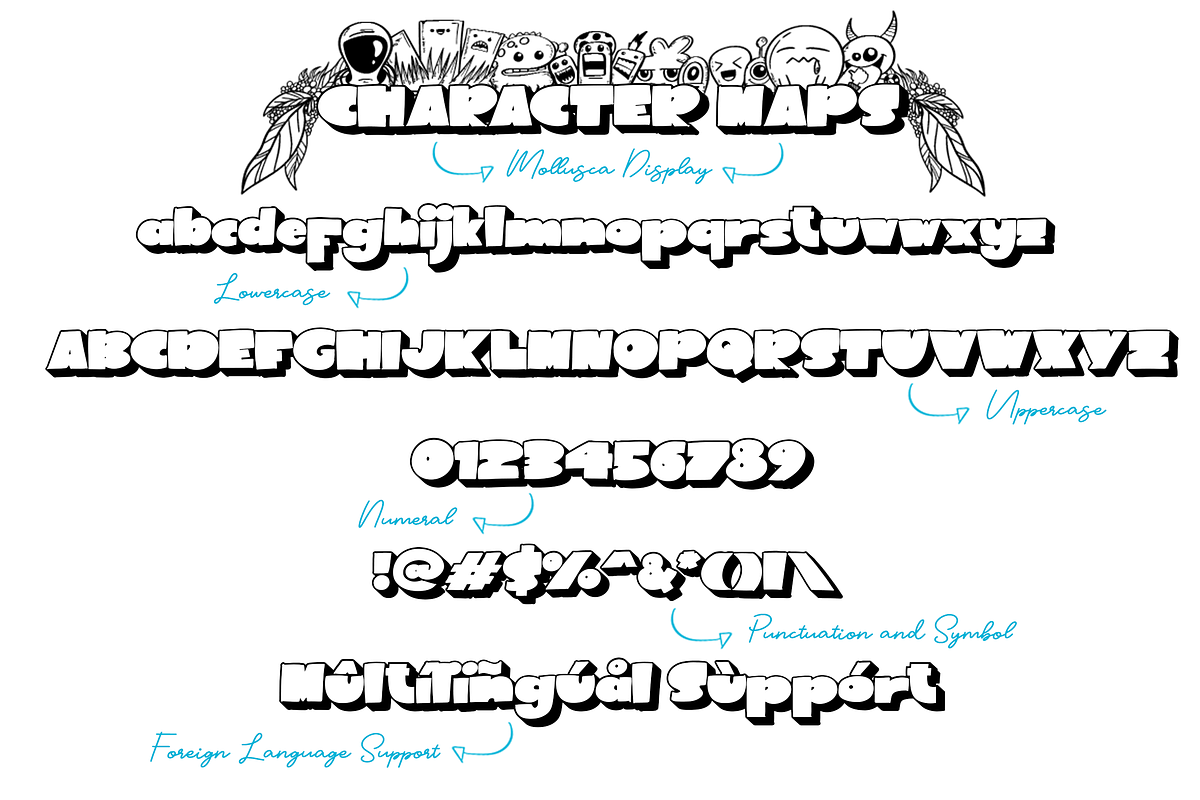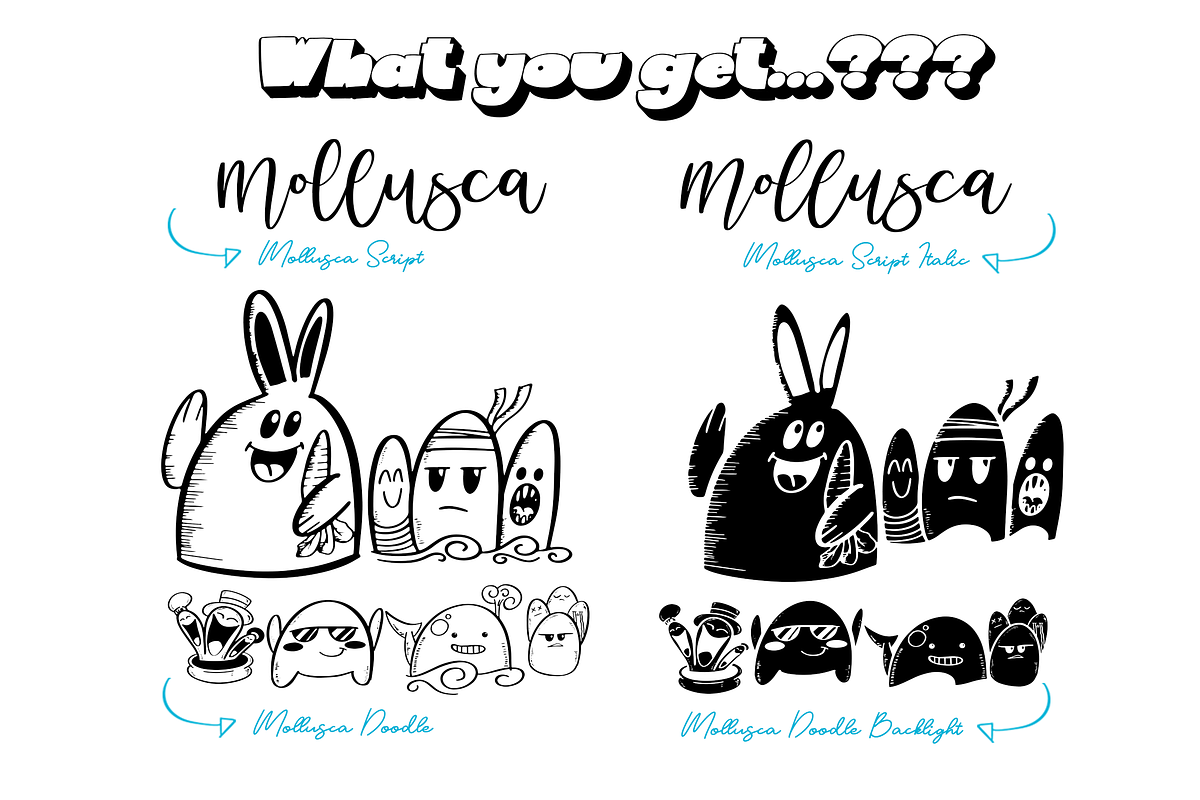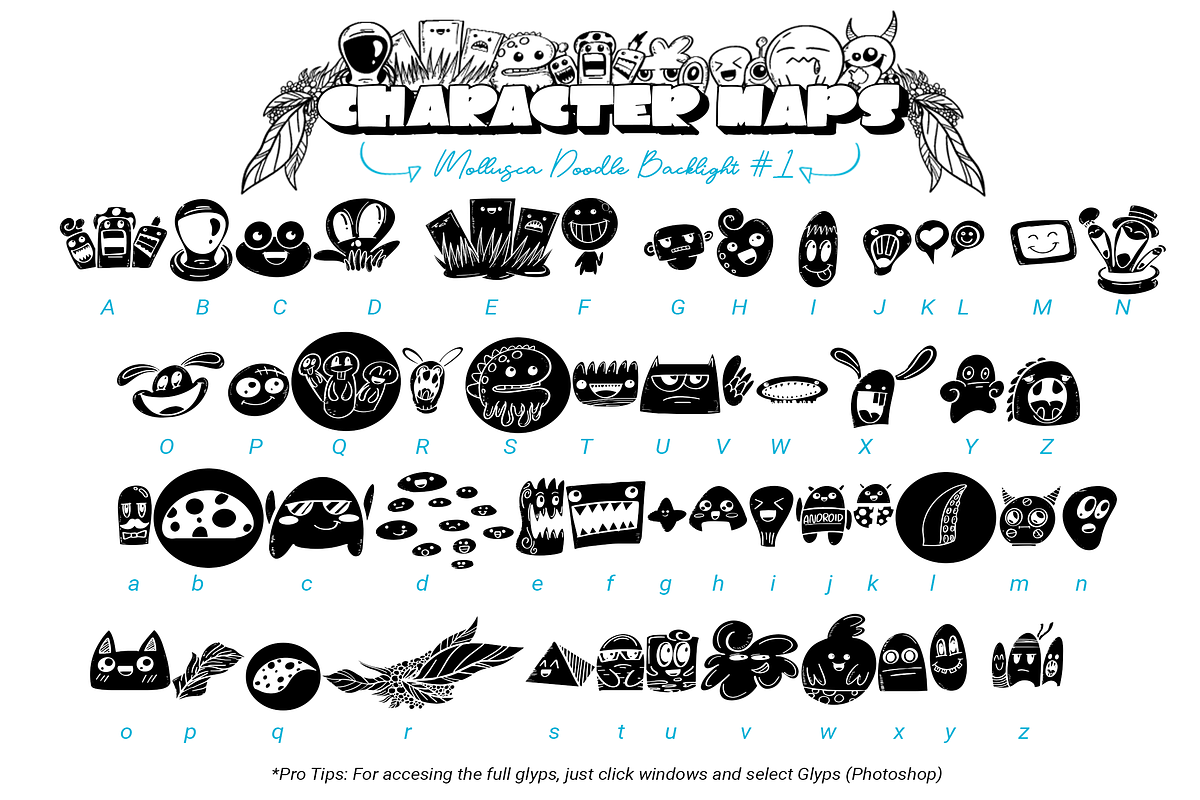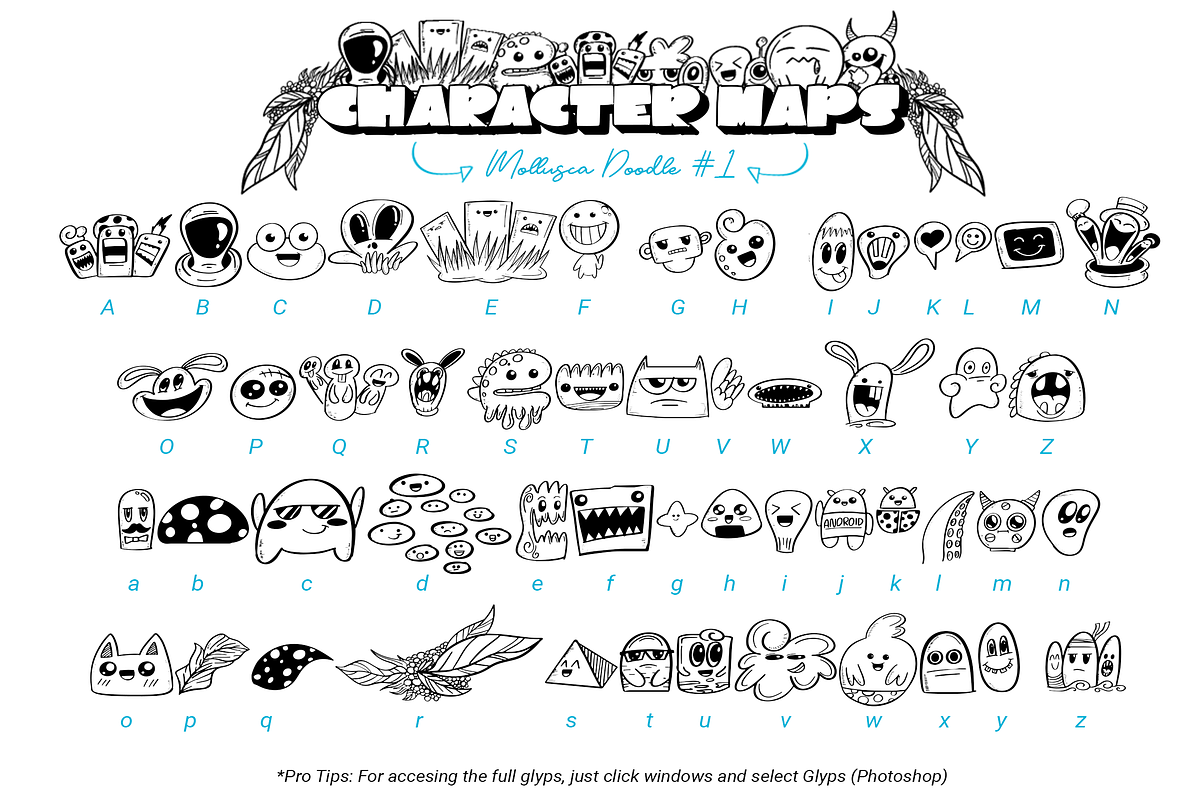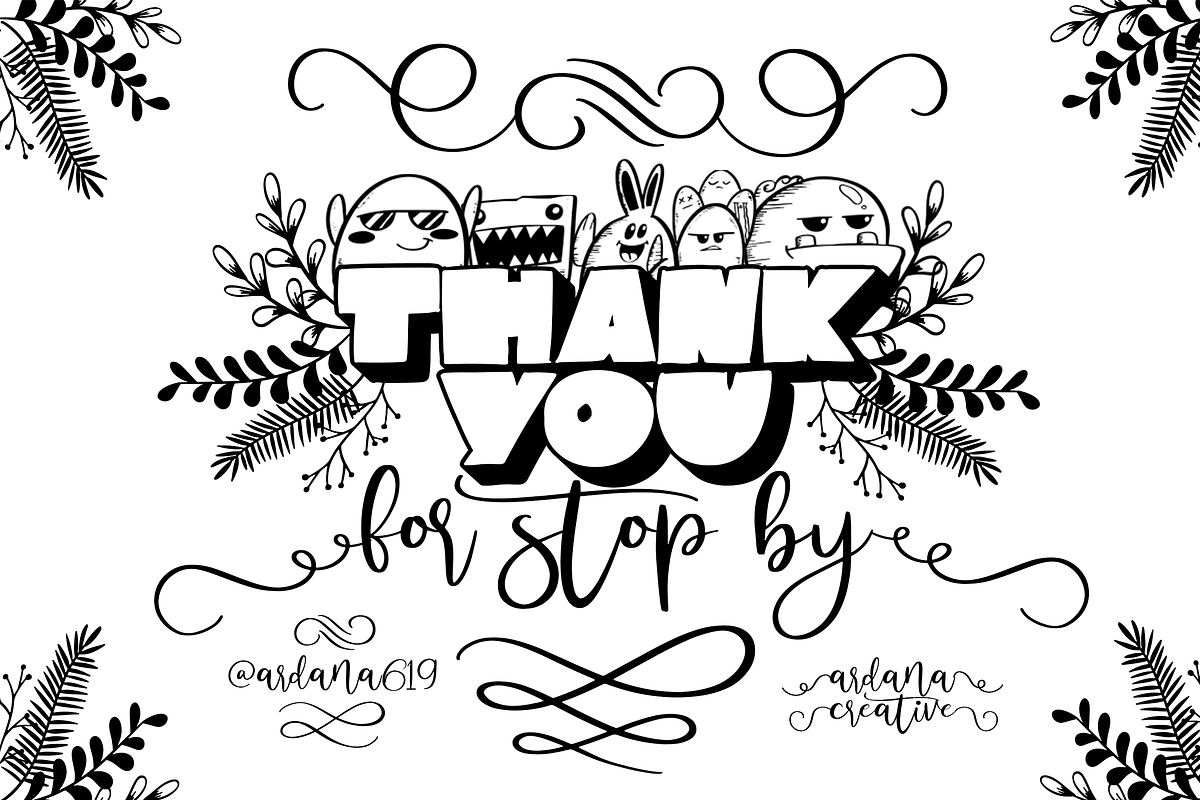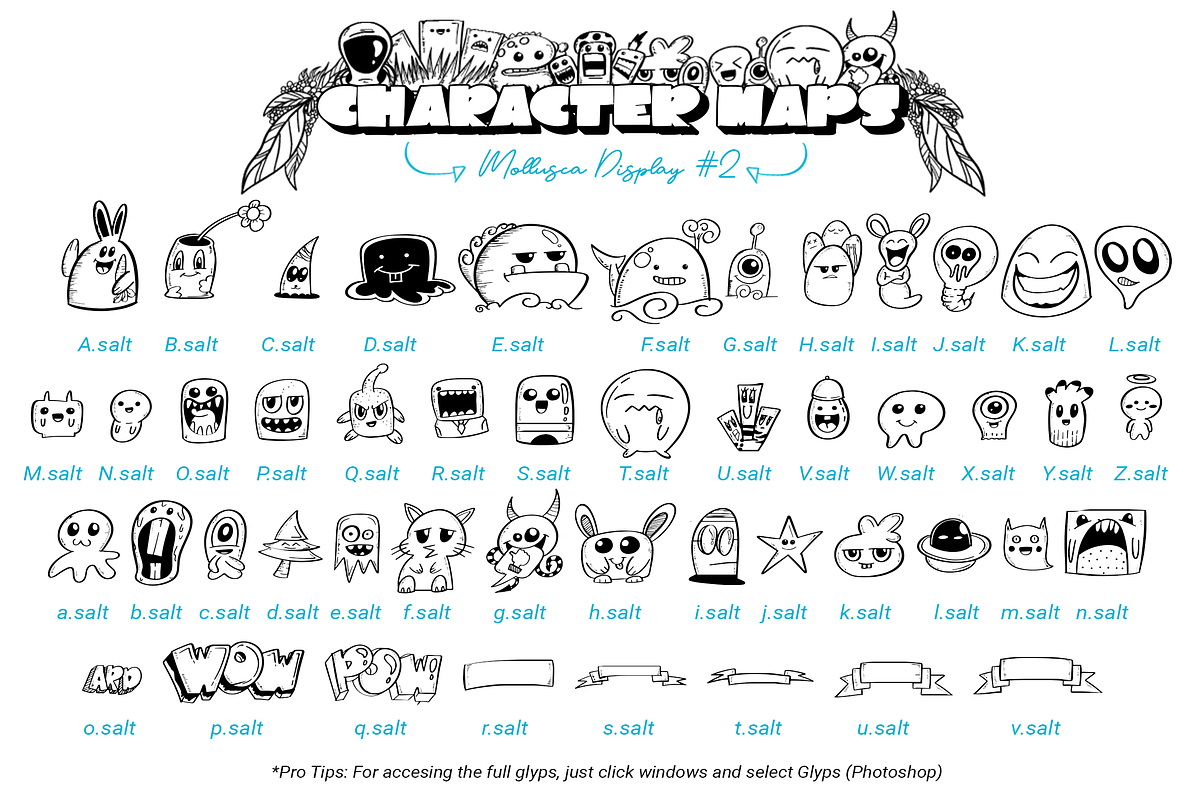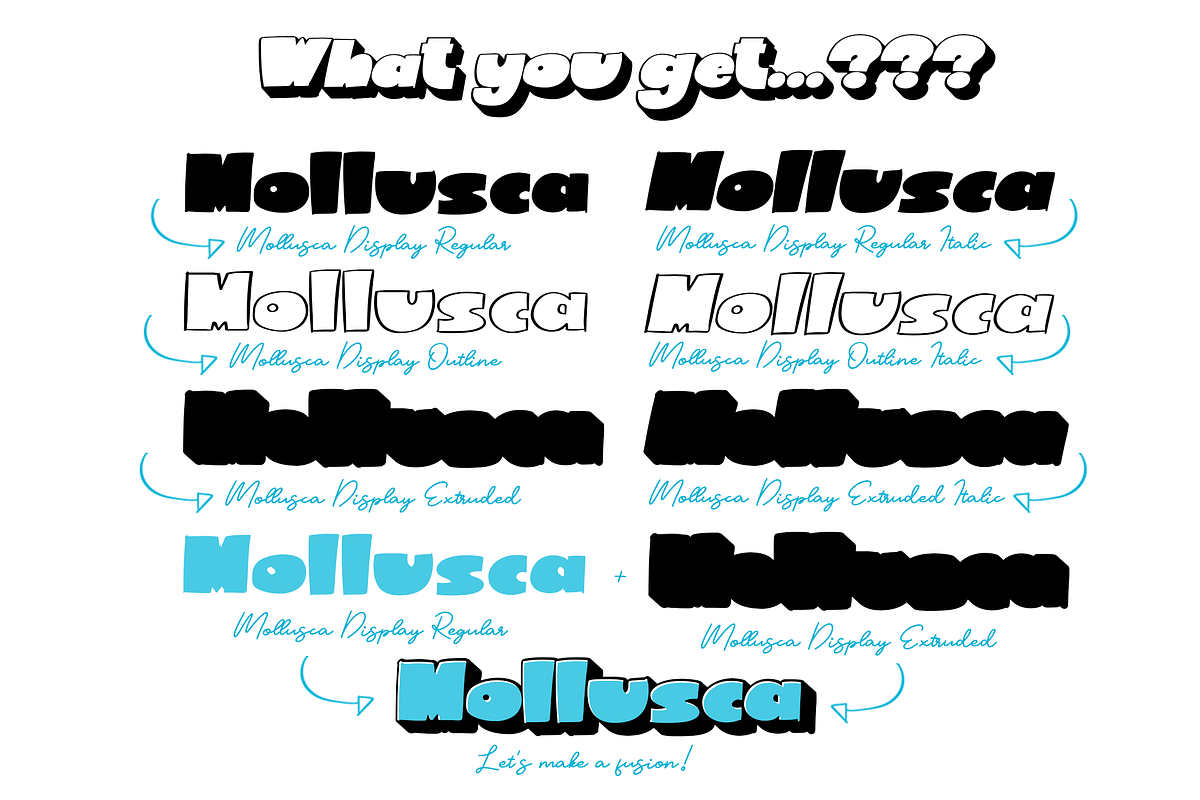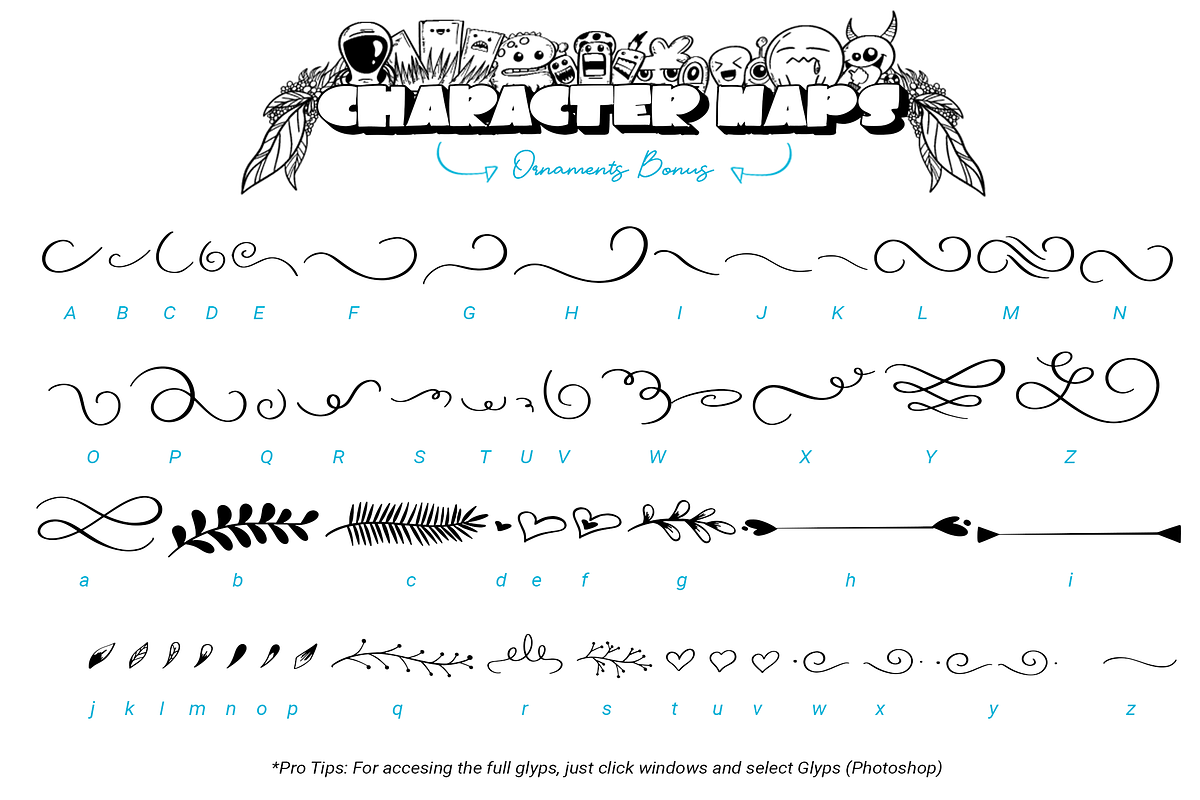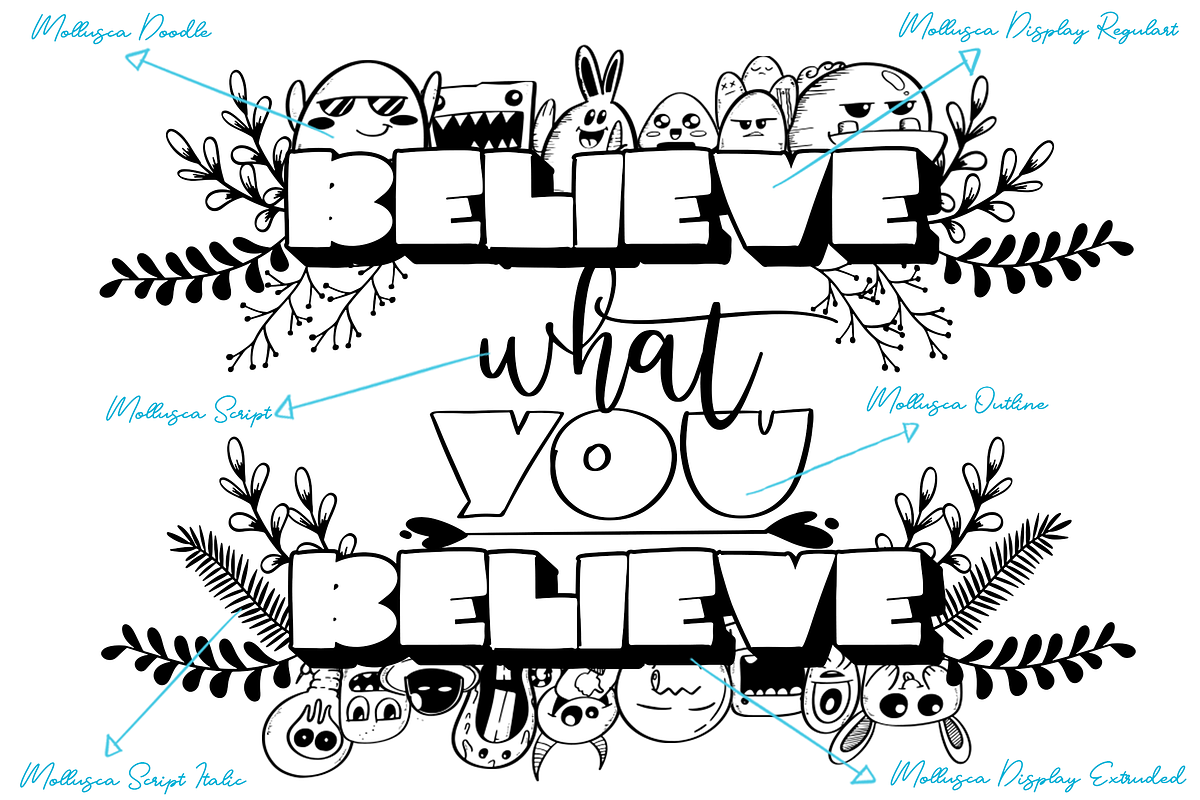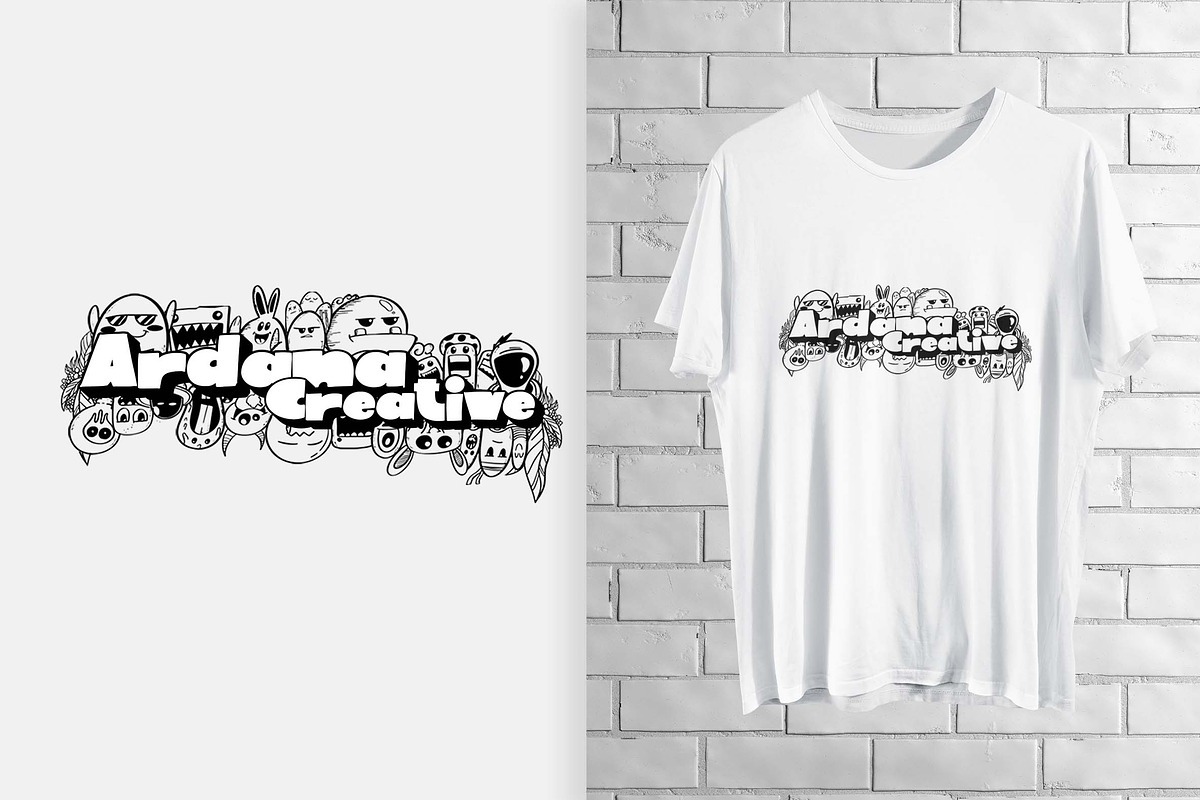
Mollusca Font Trio | Dingbats Doodle
Mollusca is a font that includes three amazing typefaces!
First, you will get a Mollusca Display - a bold and fun display typeface that is very suited for your cartoony design. It also included Mollusca Display Extruded version which can be useful for any doodle-like style!
Then, the second typeface is Mollusca script - a script and stylistic typeface that includes ligatures and a unique feel! Combine both display and script versions to make your outstanding design!
The last but not least, you will get a super unique handcrafted doodle font which we called Mollusca doodle! These three musketeers will make an incredible combo for your beloved project!
Don't forget, we also give you beautiful ornaments to make your combo more perfect!
This font is really perfect for logo design, t-shirt, vintage and cartoony badge, quotes, branding, packaging, comic, cartoon design, cute wallpaper, book cover, etc.
Mollusca features:
A full set of upper & lowercase characters
Multilingual language support
PUA Encoded Characters
Swashes and Ligatures
OpenType Features
Doodle Font!
Ornaments Bonus